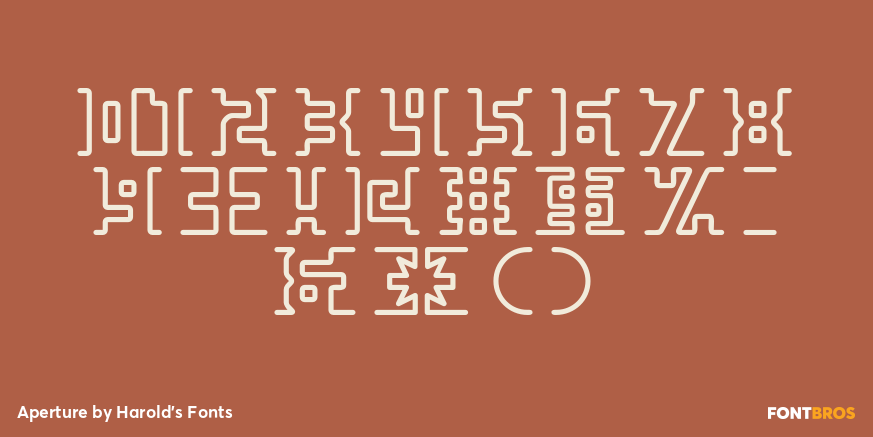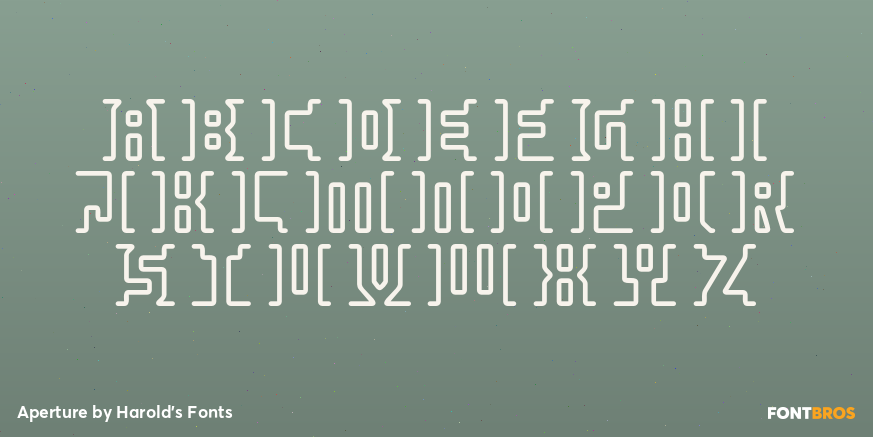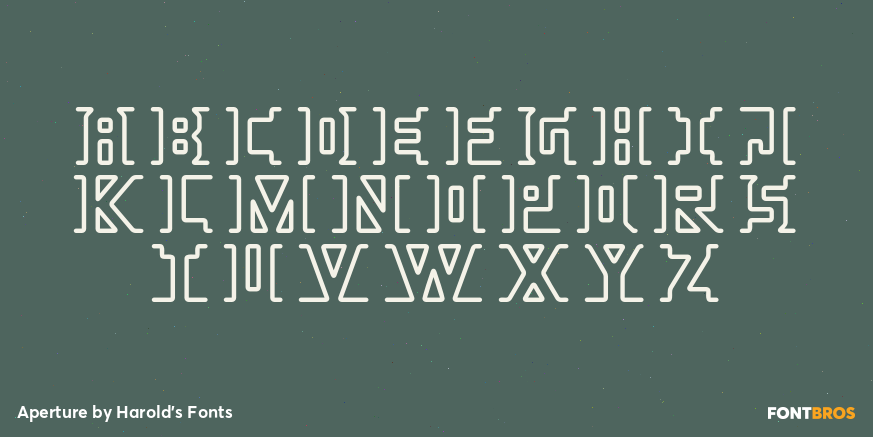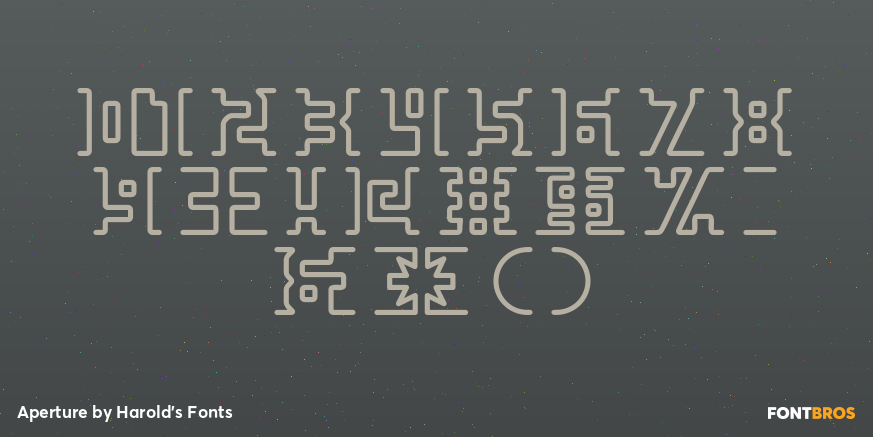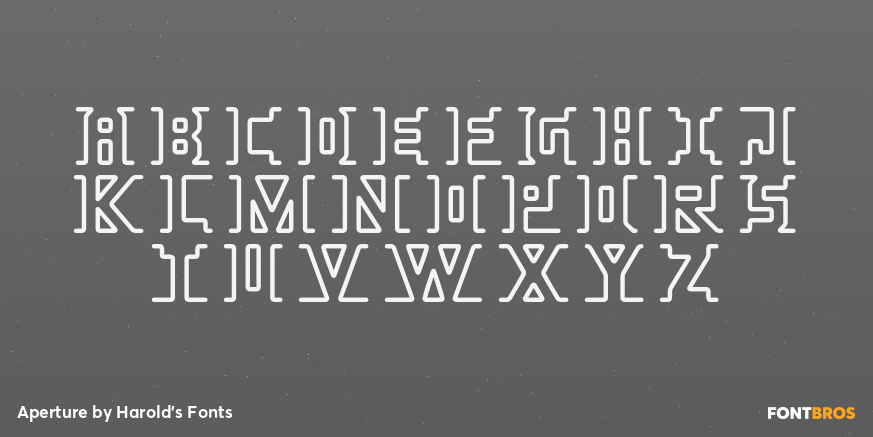
Aperture
Font Family by Harold's Fonts
APERTURE is a special-effects font specially designed to be difficult to read! Use it for a puzzling or comic effect or to suggest an alien script that only some can read. There are outline and solid fonts that can be used separately or layered together; each includes alternate letter forms for further play with legibility.
Version 1.5 has an expanded character set.